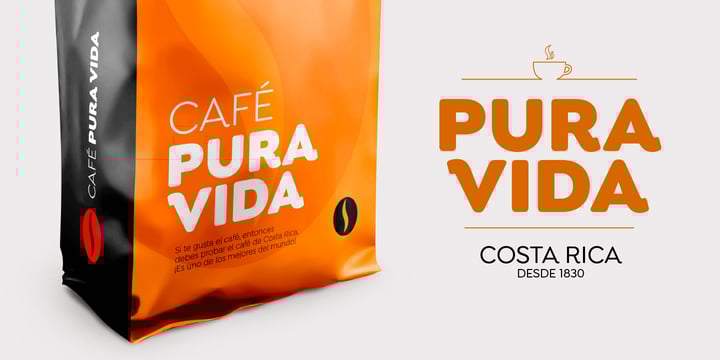
Isidora Soft
von Latinotype
Die Schriftfamilie Isidora Soft wurde von Enrique Hernández entworfen und von Latinotype veröffentlicht. Isidora Soft enthält 28 Stile und Familienpaketoptionen.
Isidora Soft is a new version of Isidora —a 2016 MyFonts Bestseller. Its rounded, soft terminals give it a friendly and expressive look, and its modern and contemporary style, small x-height and classic proportions make it an excellent choice for headlines, logotypes, branding, books, magazines, motion graphics, and use on web and Tv. Isidora Soft consists of two 7-weight versions: one regular and one alternative which is more expressive and playful compared to its counterpart. Both versions include matching italics, resulting in a total of 28 styles. Isidora Soft contains a set of 452 characters that support over 200 Latin-based languages.
Designer: Enrique Hernández
Herausgeber: Latinotype
Foundry: Latinotype
Eigentümer des Designs: Latinotype